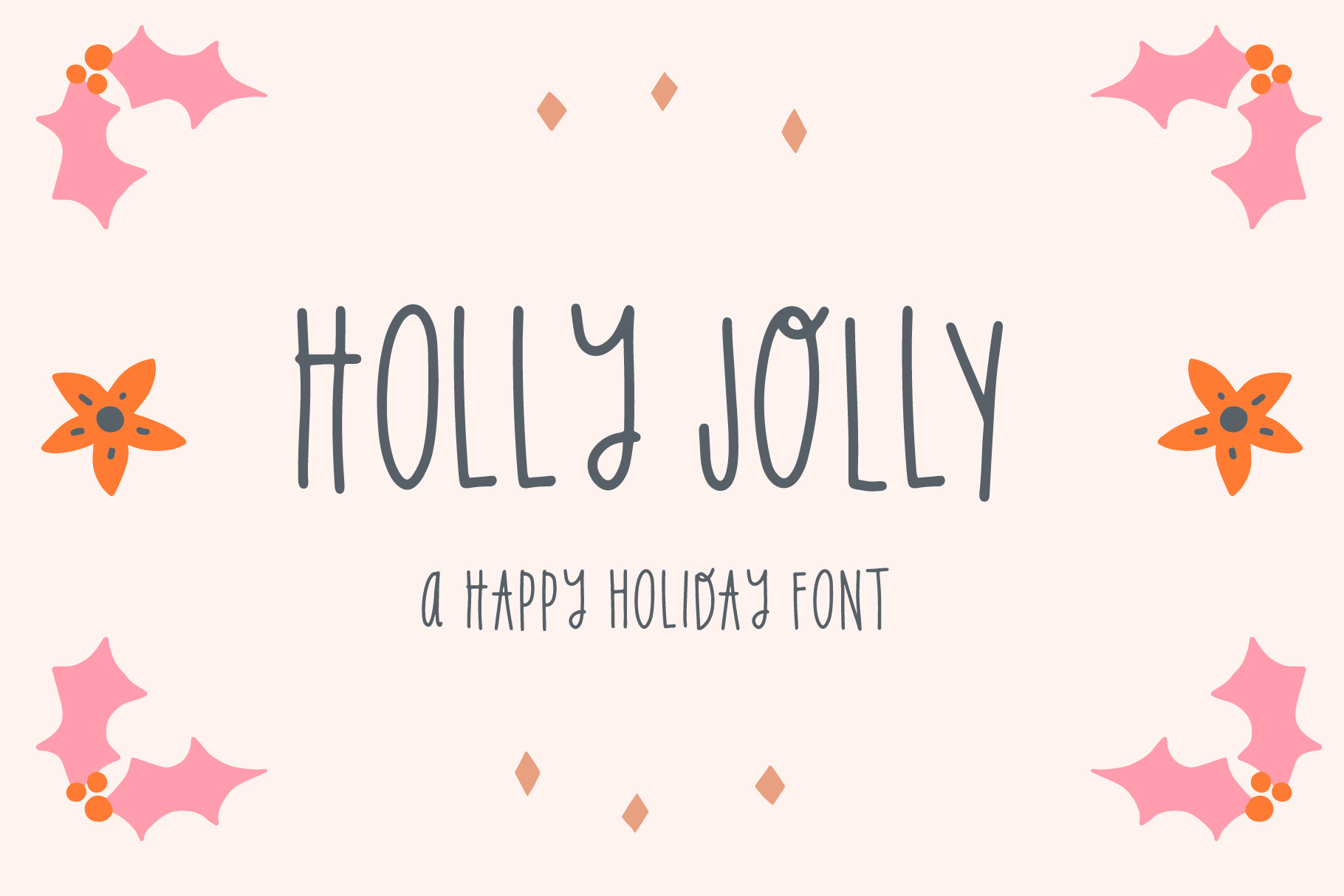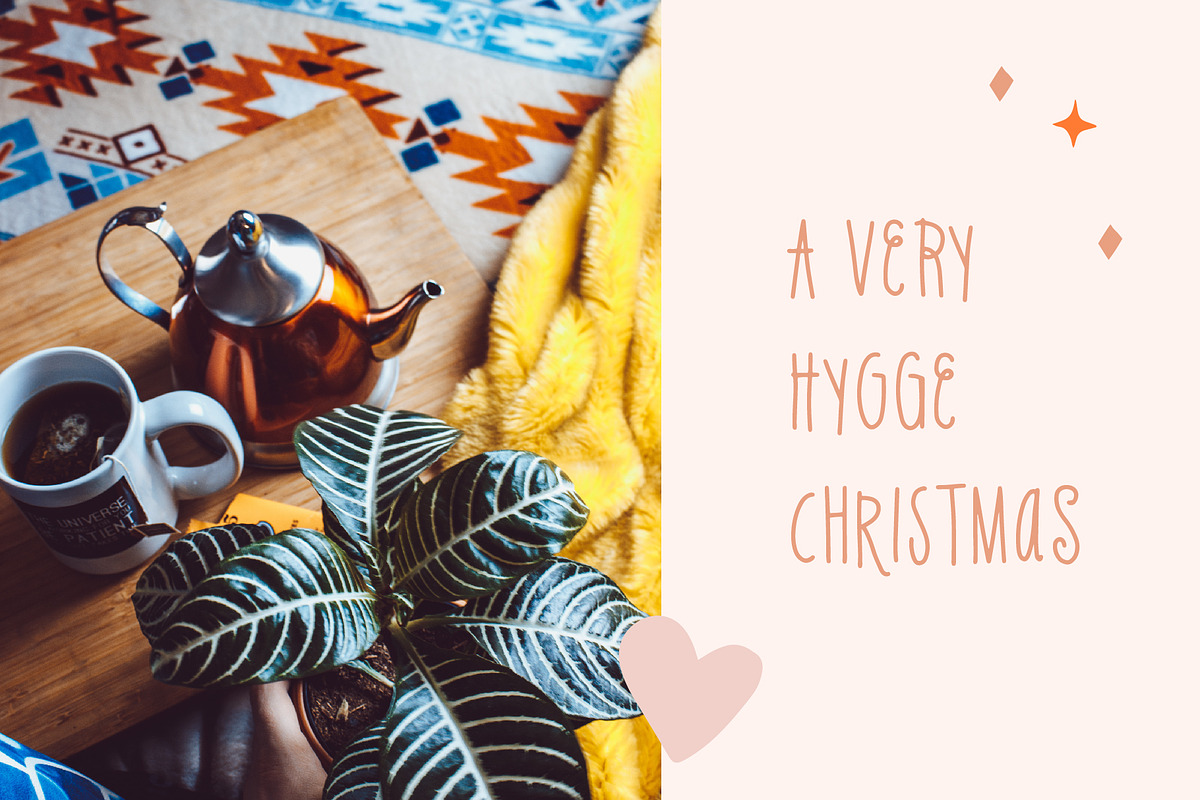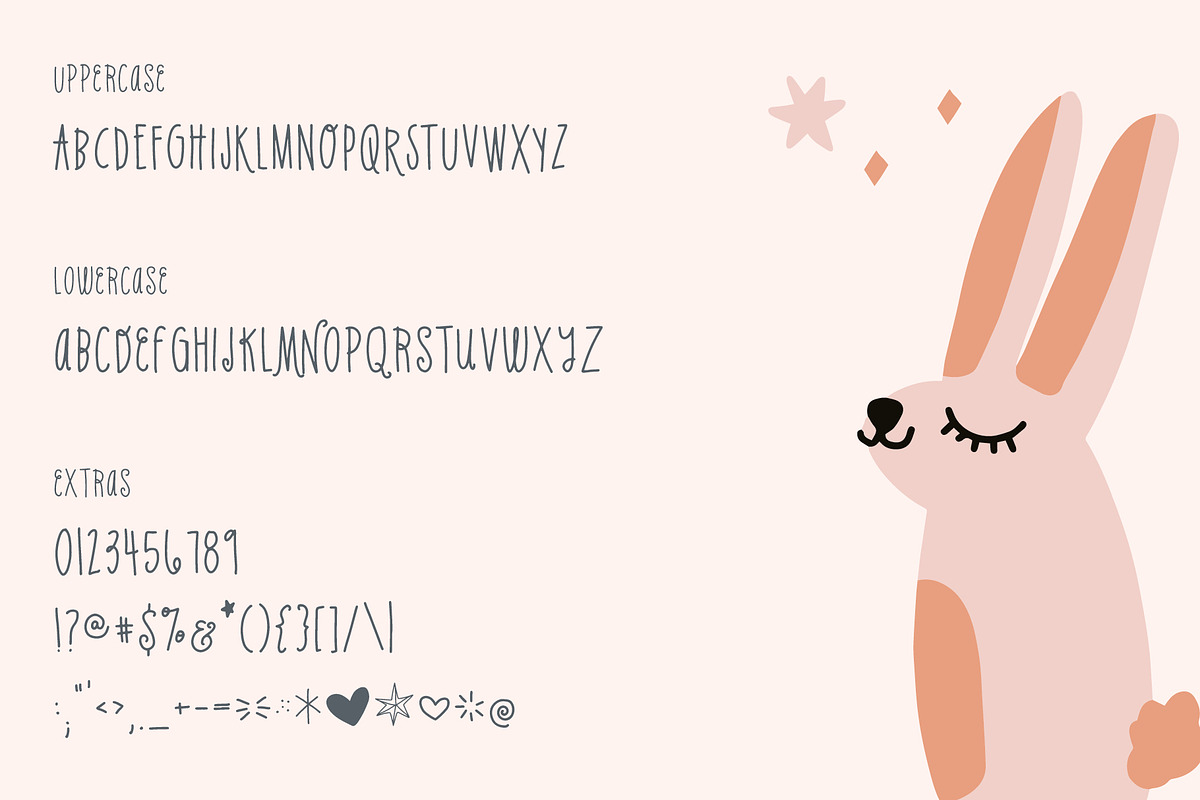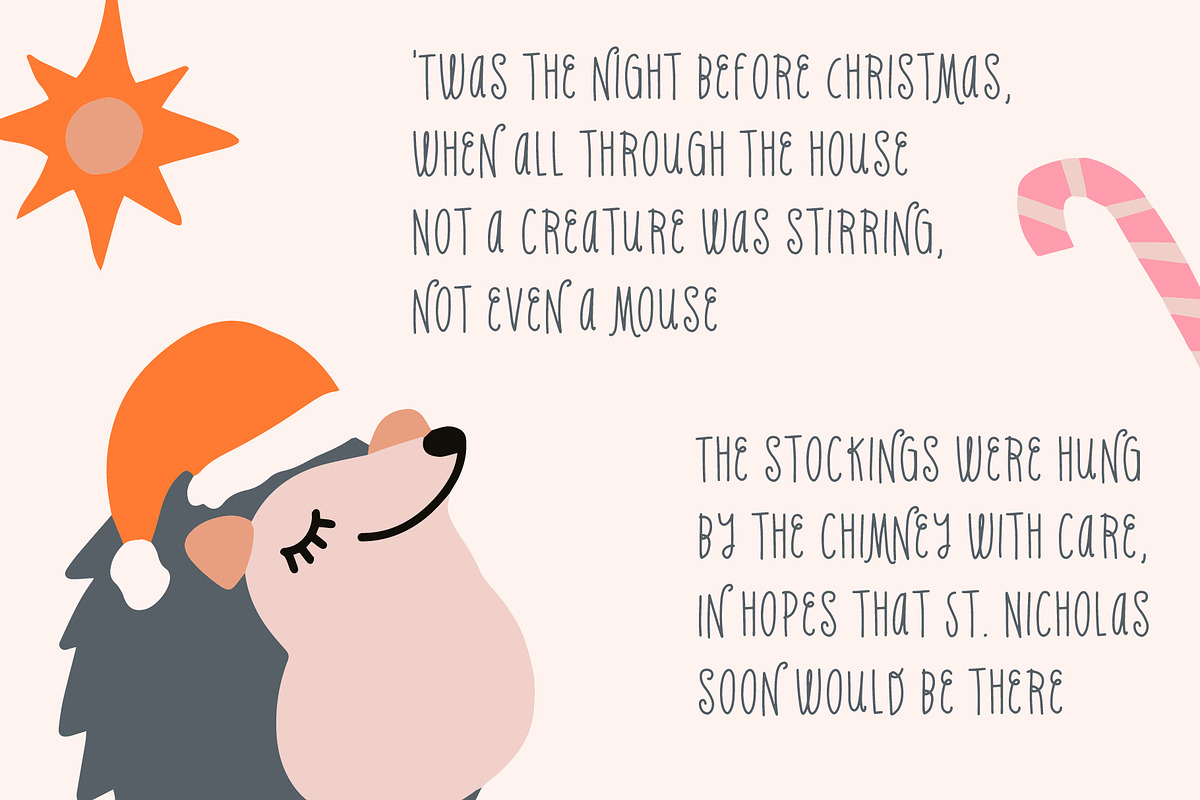
Holly Jolly Holiday Font
This adorably awesome font Holly Jolly is great for year-round design. Use it in your blog, on products, in ads and logos! This font includes uppercase characters and corresponding alternates, accessed easily by using the lowercase set. Also included are 9 flourishes, accessed by using the Glyphs panel of your favorite program.
Make this holiday season memorable with this unique, hand drawn font! Use on holiday greetings, social media, and more!